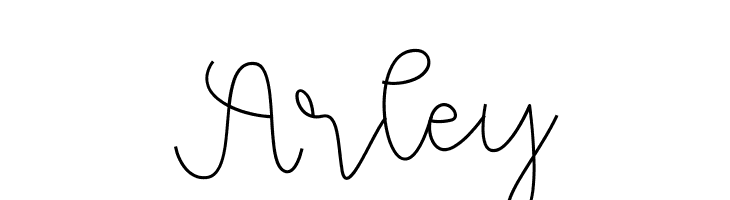
A playful, stencil-like font with bold, irregular shapes and a modern, artistic style.
A bold, playful font with rounded strokes and a friendly appearance.
A decorative and elegant font with cursive and bold elements, perfect for artistic projects.
A delicate and flowing script font with elegant, elongated letterforms.
A lively and elegant handwritten font with fluid strokes and dynamic movement.
Outlined chemistry icons with a clean, minimalistic style.
A decorative font with elegant curves and intricate details, perfect for creative projects.
A playful, handwritten font with fluid strokes and a whimsical style.
A classic, elegant script font with flowing, interconnected letters.
A modern, geometric sans-serif font with clean lines and balanced proportions.
A flowing, elegant script font with a modern twist.
An elegant and flowing script font with ornate uppercase letters and smooth lowercase connections.
A delicate and elegant script font with flowing, cursive letterforms.
A dynamic and fluid script font with elegant, flowing letterforms.
A playful and whimsical decorative font with bold, curvy characters.
A distressed, grungy font with a bold, eroded appearance.
A graceful, flowing script font with elegant, thin strokes and seamless character connections.
A fluid, cursive script with elegant, sweeping strokes.
A playful handwritten font with rounded, irregular characters.
A playful, handwritten font with a casual and dynamic style.
A lively and elegant script font with bold, fluid strokes.
An elegant and whimsical font with flowing, interconnected letterforms.
A flowing, elegant handwritten font with a casual and sophisticated style.
A whimsical and playful script font with decorative swirls and interconnected letters.
A playful, whimsical font with hand-drawn qualities and varying stroke thickness.
A playful, handwritten font with bold, organic strokes and a casual feel.
A playful, casual handwritten font with uneven strokes and an organic flow.
A clean and elegant serif font with thin, graceful strokes.
A modern serif font with elegant and refined letterforms.
A classic serif font with modern elegance and medium contrast.